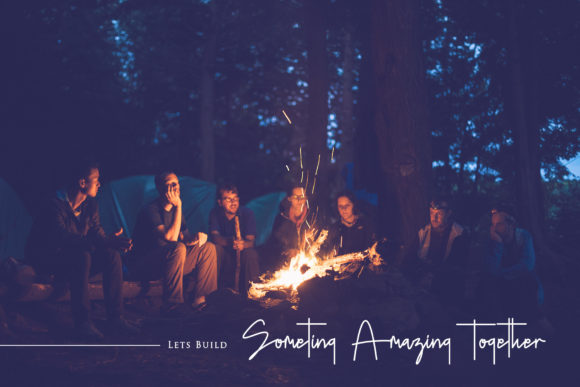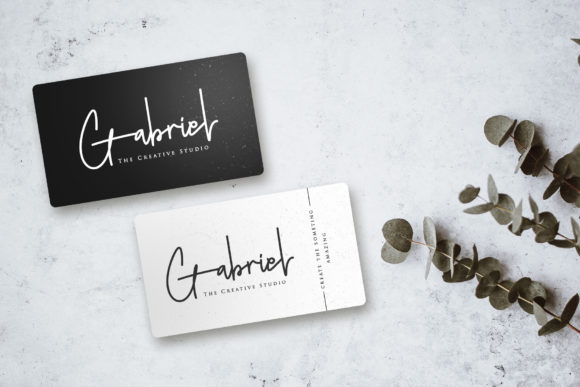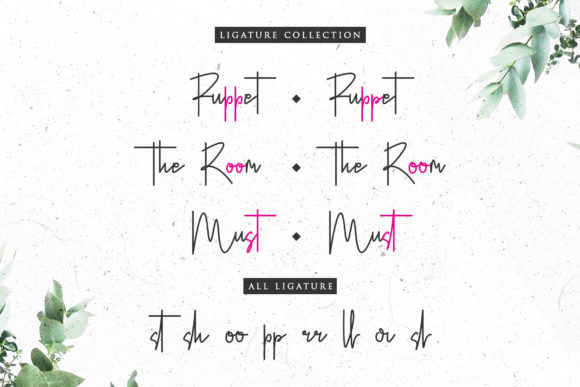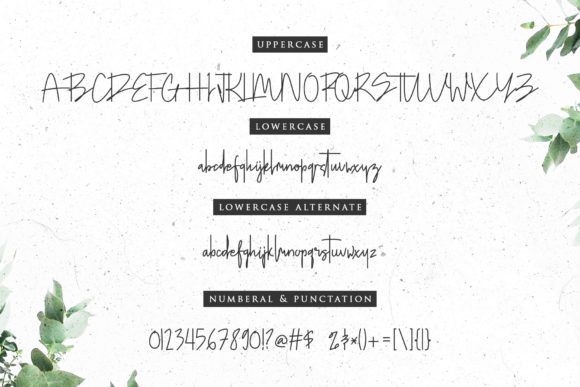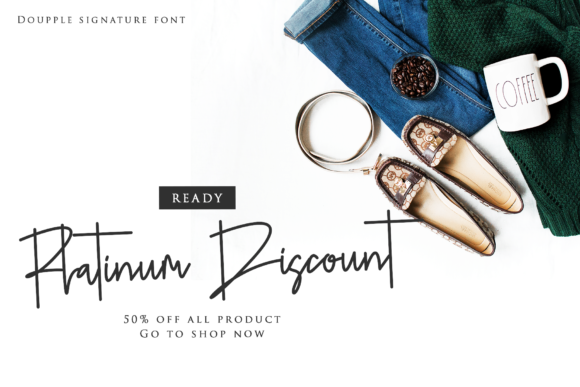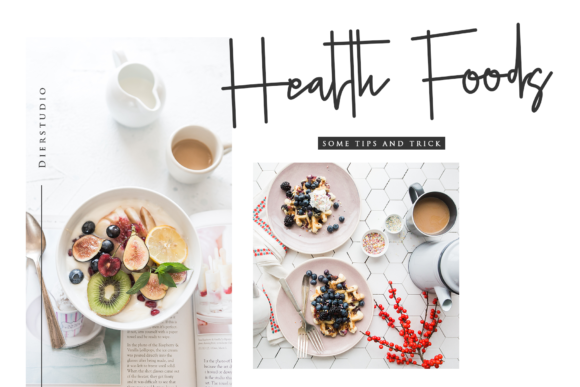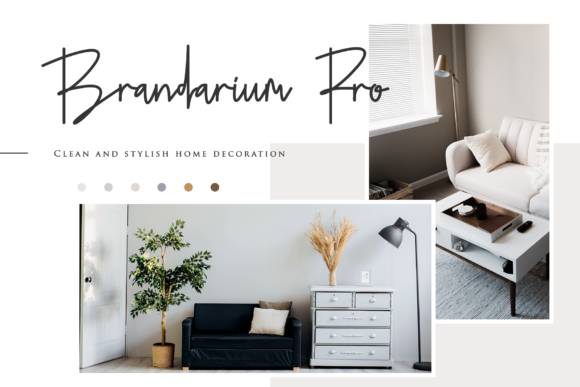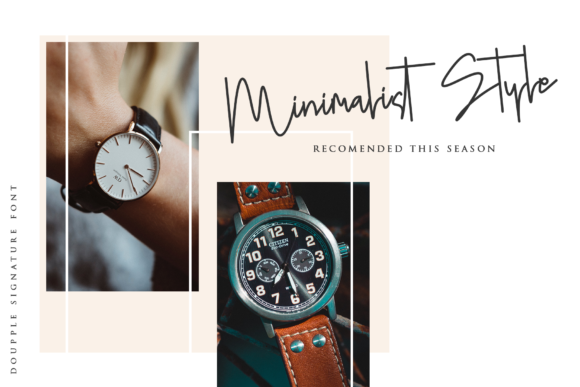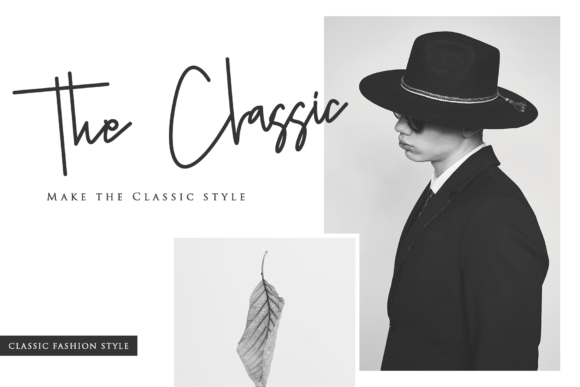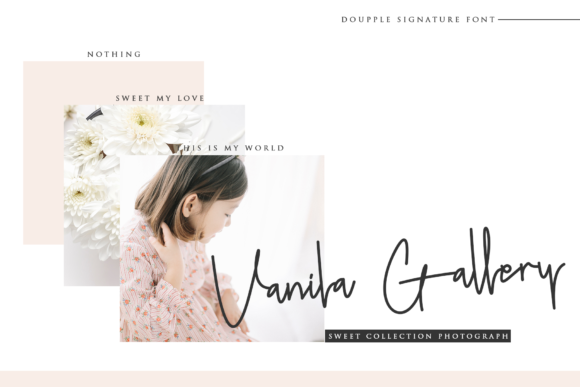
Doupple Font
About Doupple Font
The Doupple is an amazing signature font. It has an elegant feel and will add an upscale and chic look to your designs.
It’s perfect for any design which needs an authentic handwritten feel.